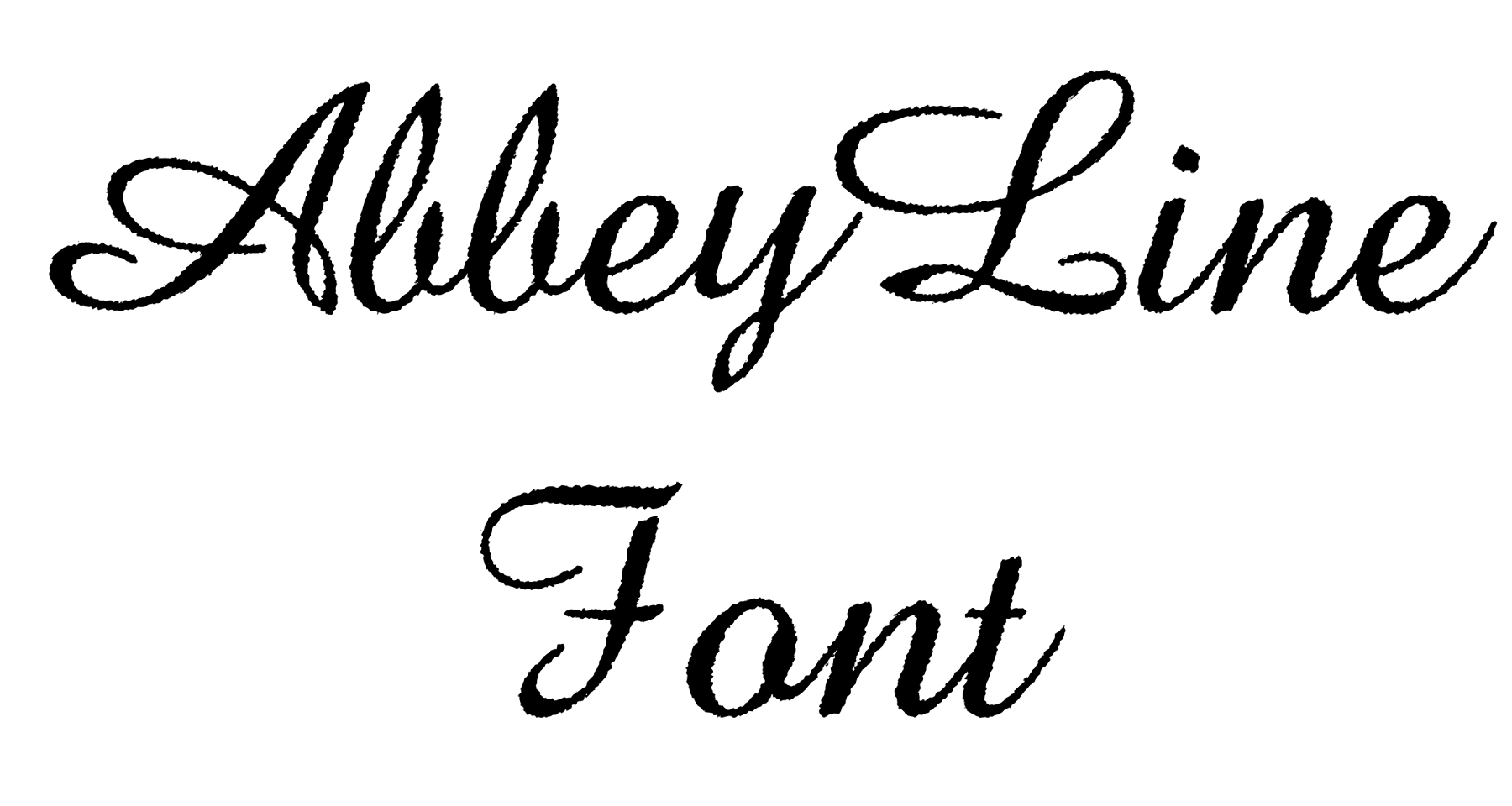
AbbeyLine
AbbeyLine is a script font (2009). Its flowing, pen-made letters give names and short phrases a personal, polished look. You can download it for free and test it with your own words in the preview above.
What You Can Type With AbbeyLine
AbbeyLine covers the full alphabet in upper and lowercase, plus all ten numbers, so you can set names, dates and prices without switching fonts. Everyday marks like &, !, ? and @ are there too. There are no accented letters like é or ñ, so it's best kept to English text.
Where AbbeyLine Works Best
AbbeyLine is a natural fit for wedding invitations, logos and signature-style headings. The file has no kerning data, so in logos and big titles check pairs like AV, To and Wa and tighten the spacing by hand. Script fonts read best in short bursts, so keep it to names, titles and one-line quotes. Skip all caps: script capitals are drawn to start a word, not to fill one.
Does AbbeyLine support accented letters?
No. AbbeyLine has no accented letters such as é, ñ or ü, so it's best for English text.